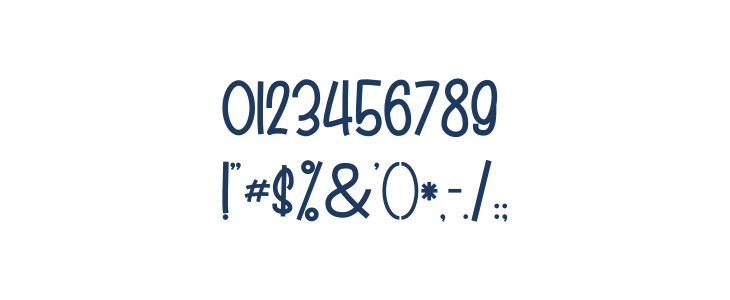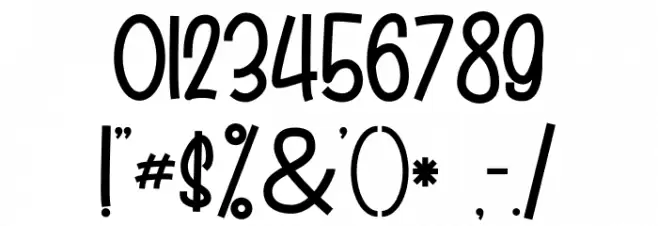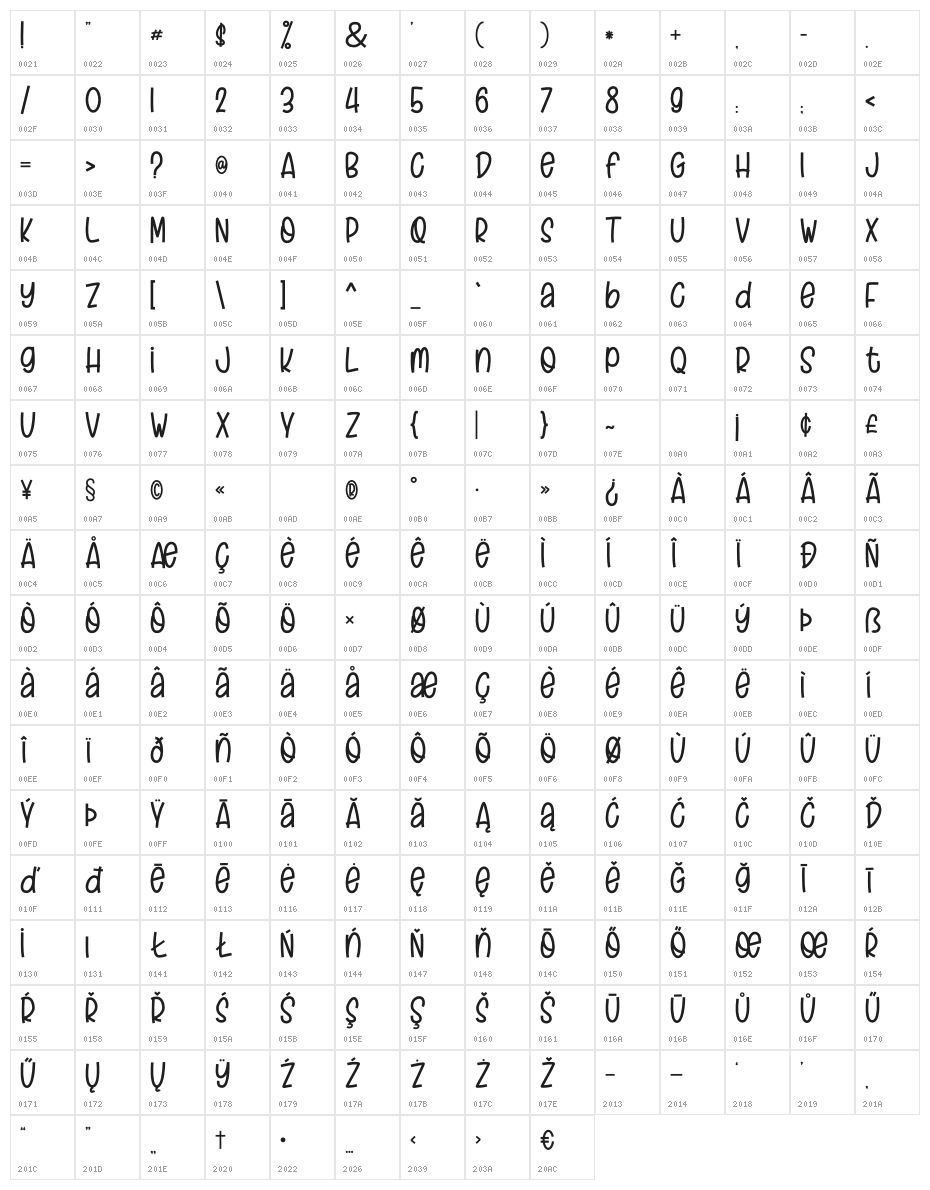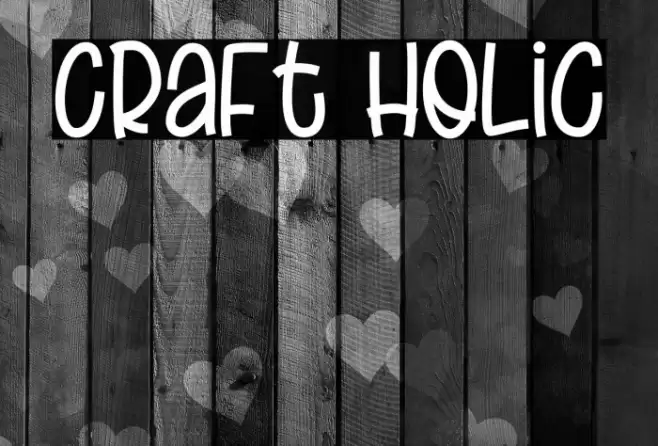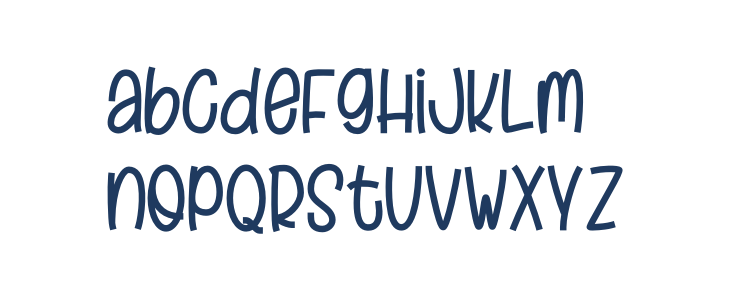
Craft Holic Font
Craft Holic Description
This playful and whimsical font features a hand-drawn style with a casual, friendly appearance. The letters are slightly irregular, adding a charming, informal touch to the text. The uppercase and lowercase characters maintain a consistent style, with rounded edges and a slight tilt, giving them a dynamic and lively feel. The numbers and special characters are designed to match the overall aesthetic, ensuring a cohesive look across all text elements. This font's unique personality makes it ideal for projects that require a fun and approachable vibe.
| Use Case | Headlines, Logos, Crafts |
| Proposed Projects | Ideal for children's books, greeting cards, playful branding, and DIY crafts. |